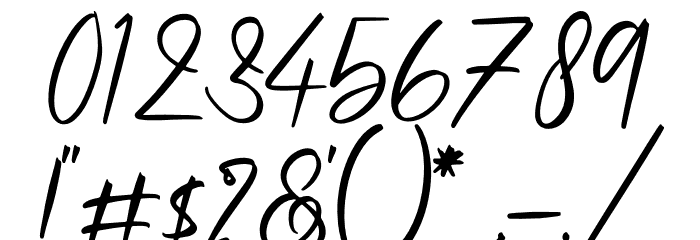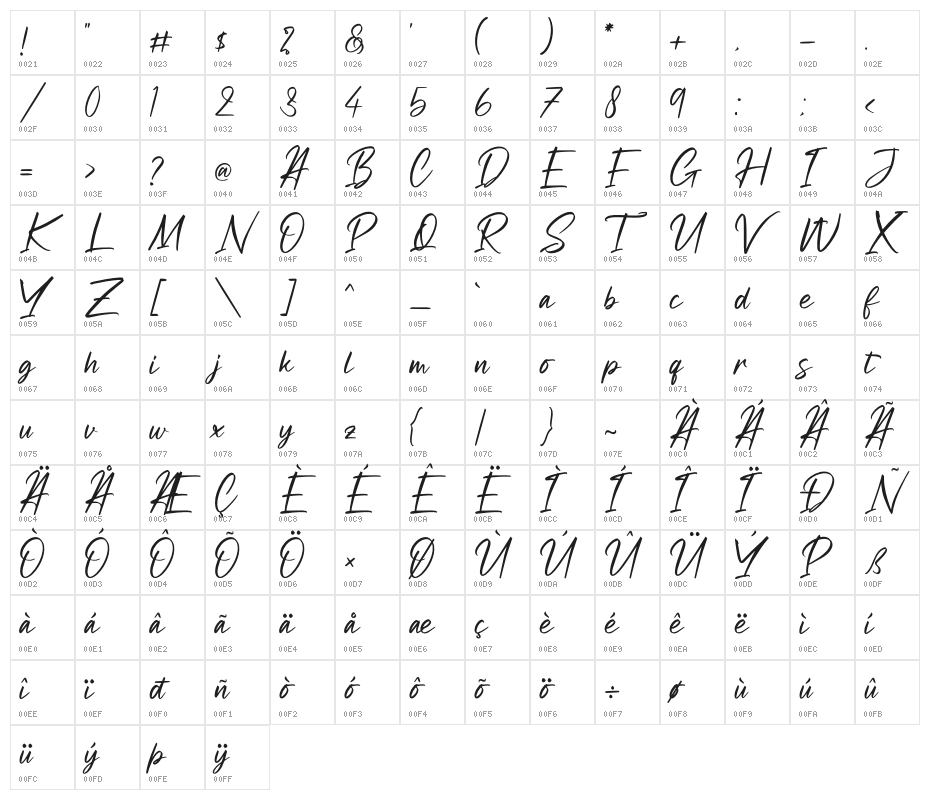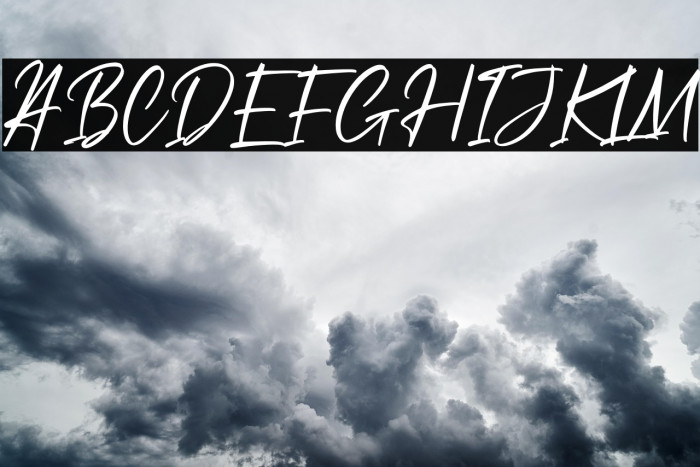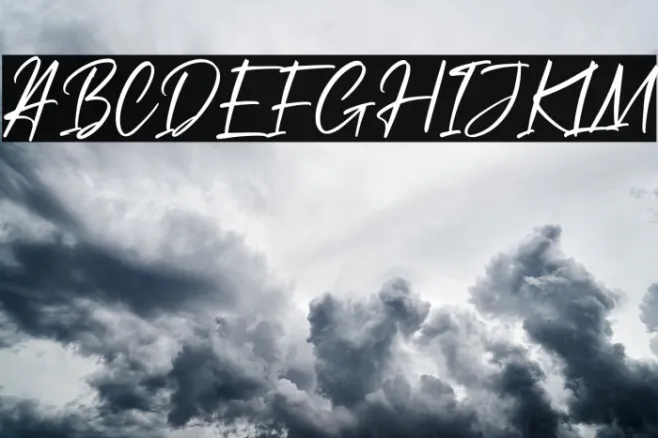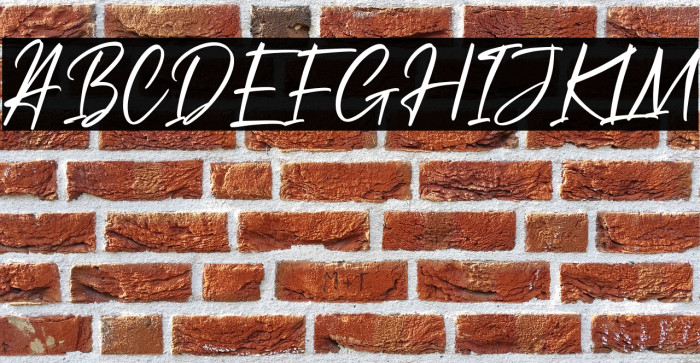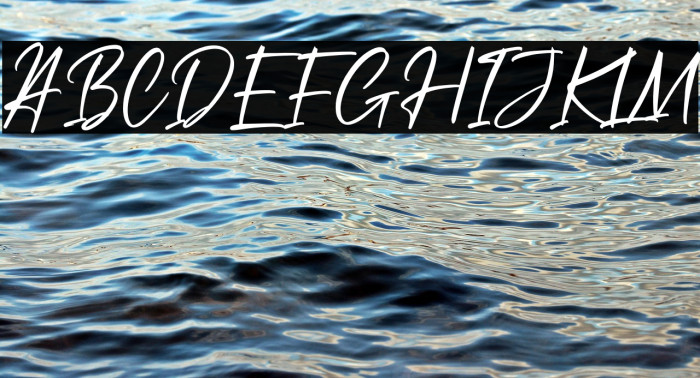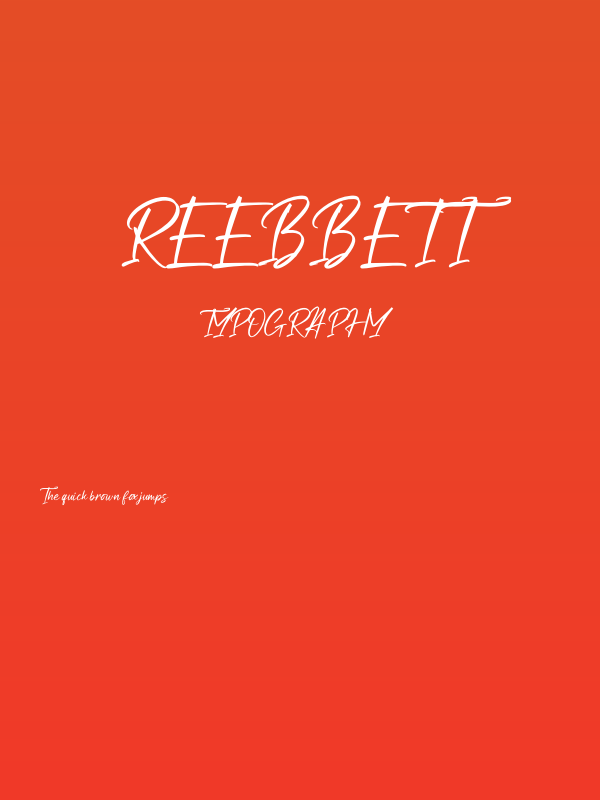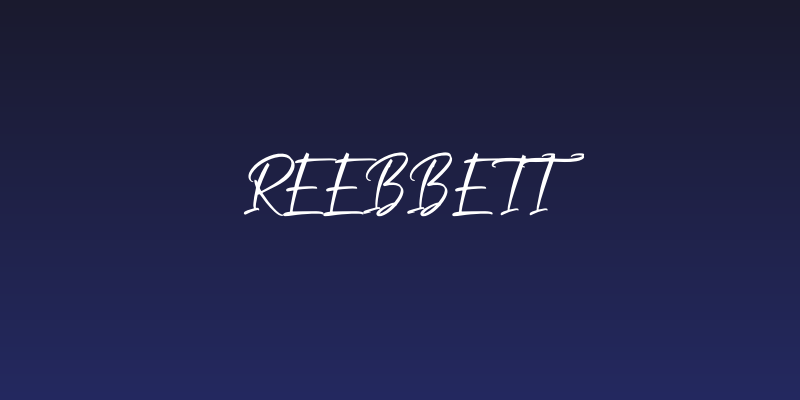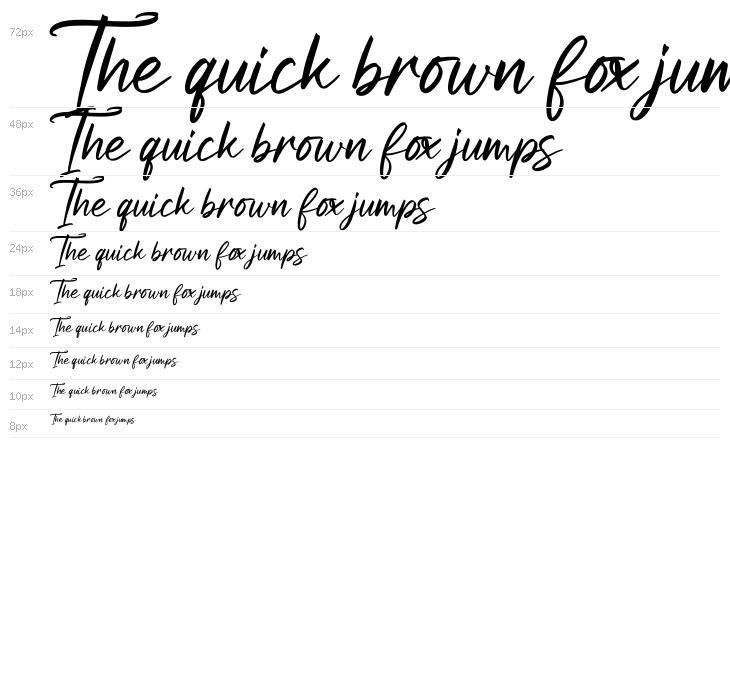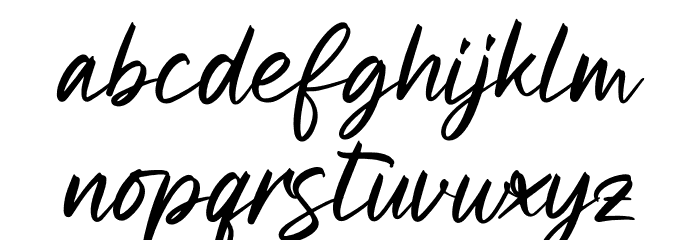
Reebbett Font
Reebbett Description
This font exhibits a dynamic and expressive handwritten style, characterized by its fluid and cursive letterforms. The uppercase letters are bold and slightly slanted, giving a sense of movement and energy. The lowercase letters maintain a consistent flow, with some letters featuring loops and swashes that enhance its handwritten appeal. The numerals are clear and legible, following the same cursive style, which adds to the overall cohesiveness of the font. Special characters are creatively integrated, maintaining the font's lively and artistic nature. This font is perfect for projects that require a personal touch or an informal, creative vibe.